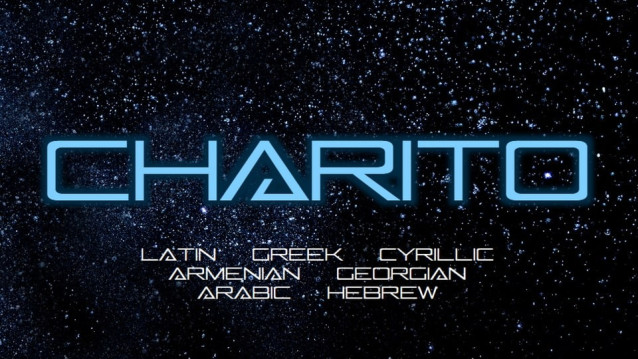
Charito Font
Charito Font is a wide rectangular, futuristic font. It supports seven scripts – Latin, Greek, Cyrillic, Armenian, Georgian, Arabic and Hebrew. Its clean lines and sharp angles create a sense of innovation, technology, and forward momentum, making it perfect for projects that aim to push boundaries. Whether for space-themed posters, game titles, tech branding, or cinematic intros, this font delivers a bold, modern edge that demands attention.